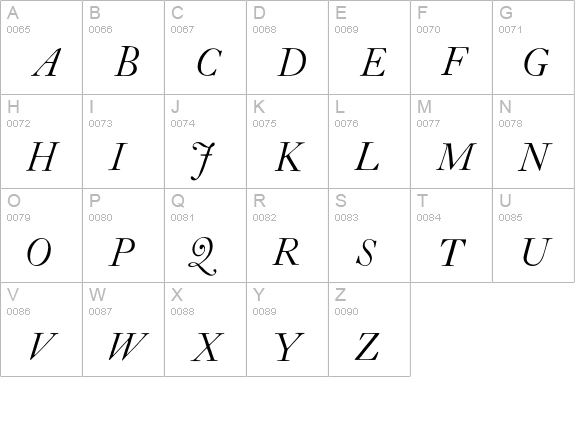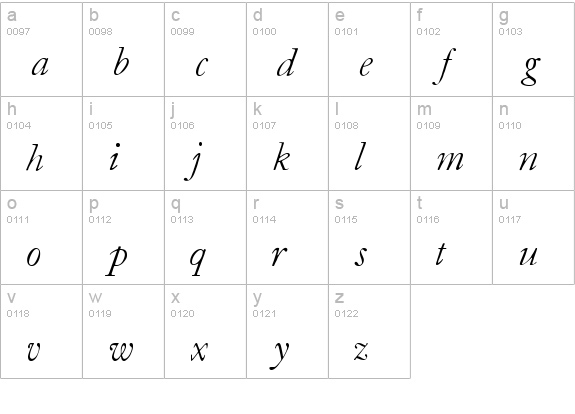
CaslonL-Italic Font Details
CaslonL-Italic is a distinctive, italic variant in the CaslonL typeface family \xE2\x80\x94 well suited to design and typography projects.
The CaslonL-Italic font exudes elegance and sophistication with its slanted and graceful letterforms. Ideal for adding a touch of classic style to any design project, this font is perfect for invitations, branding, and editorial layouts. The italicized design adds a sense of movement and flair to your text, making it stand out in a subtle yet impactful way. Best of all, CaslonL-Italic is available for free download at FontsMarket.com, making it accessible to all designers looking to elevate their typography game without breaking the bank. Don't miss out on this beautiful and versatile font that will surely enhance the visual appeal of your creations. Download CaslonL-Italic today and let your words come to life with style and sophistication.